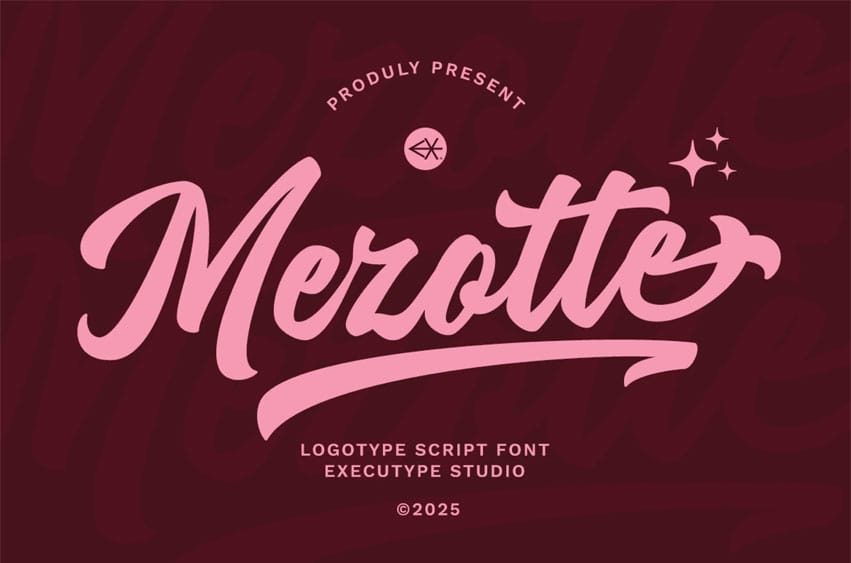
Mezotte Font is a stunning logotype script font designed to bring elegance, flow, and personality to your branding. With smooth curves, stylish swashes, and a handcrafted feel, Mezotte is perfect for logos, product packaging, wedding designs, social media posts, advertisements, and more.
Whether you’re creating a luxurious brand, a signature-style logo, or a romantic invitation, Mezotte delivers the charm and sophistication your design deserves. Each character is carefully crafted to give a natural handwritten look, making your typography feel personal and memorable.
- Beautiful flowing script with professional curves
- Perfect for logos and high-end branding
- Stylish swashes for a custom, elegant look
- Great legibility in both small and large sizes
- Multilingual support included
- Personal & business branding
- Product packaging
- Elegant wedding stationery
- Social media graphics
- Handcrafted-style logos
- Quotes, headers, and more!